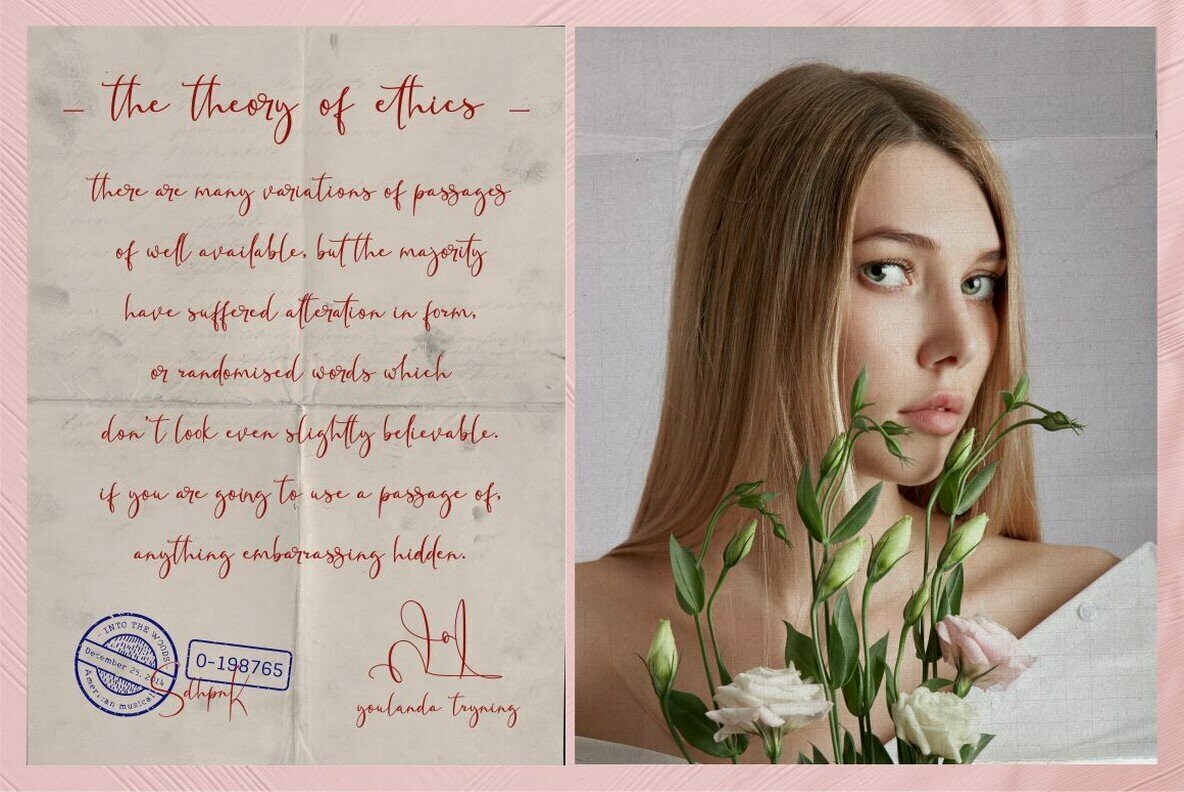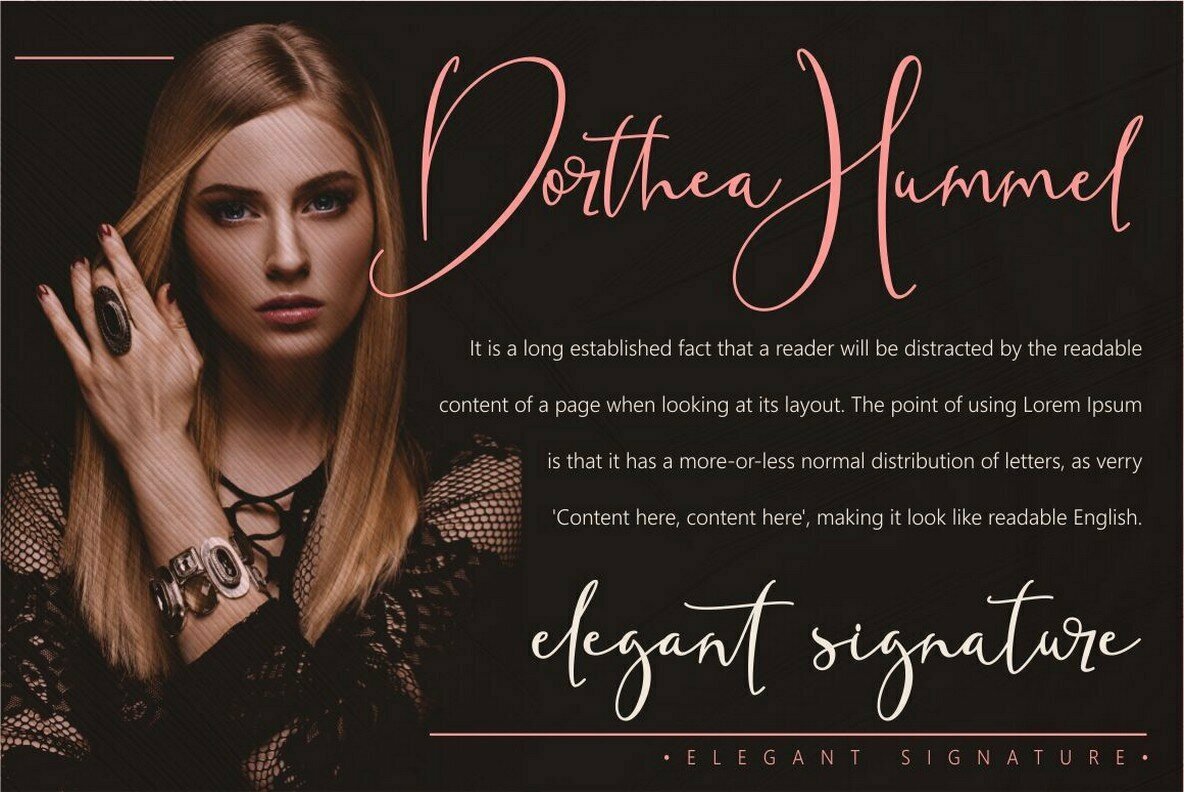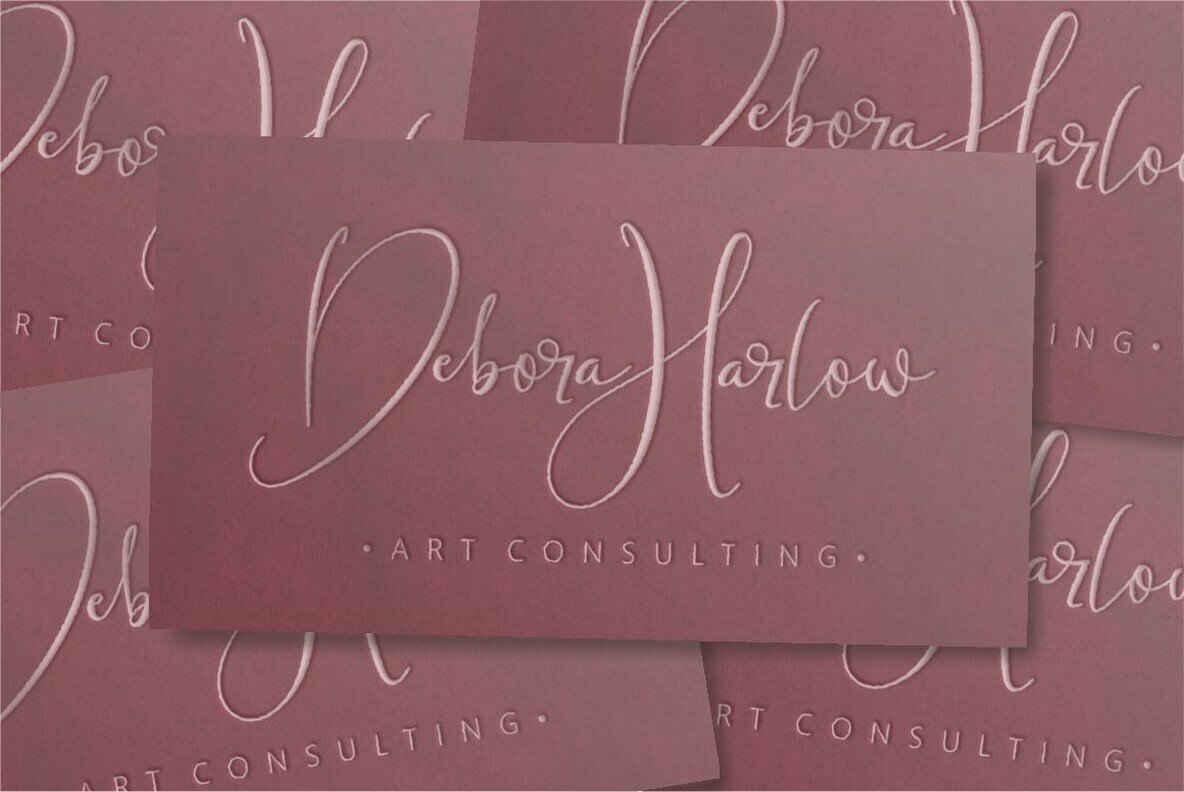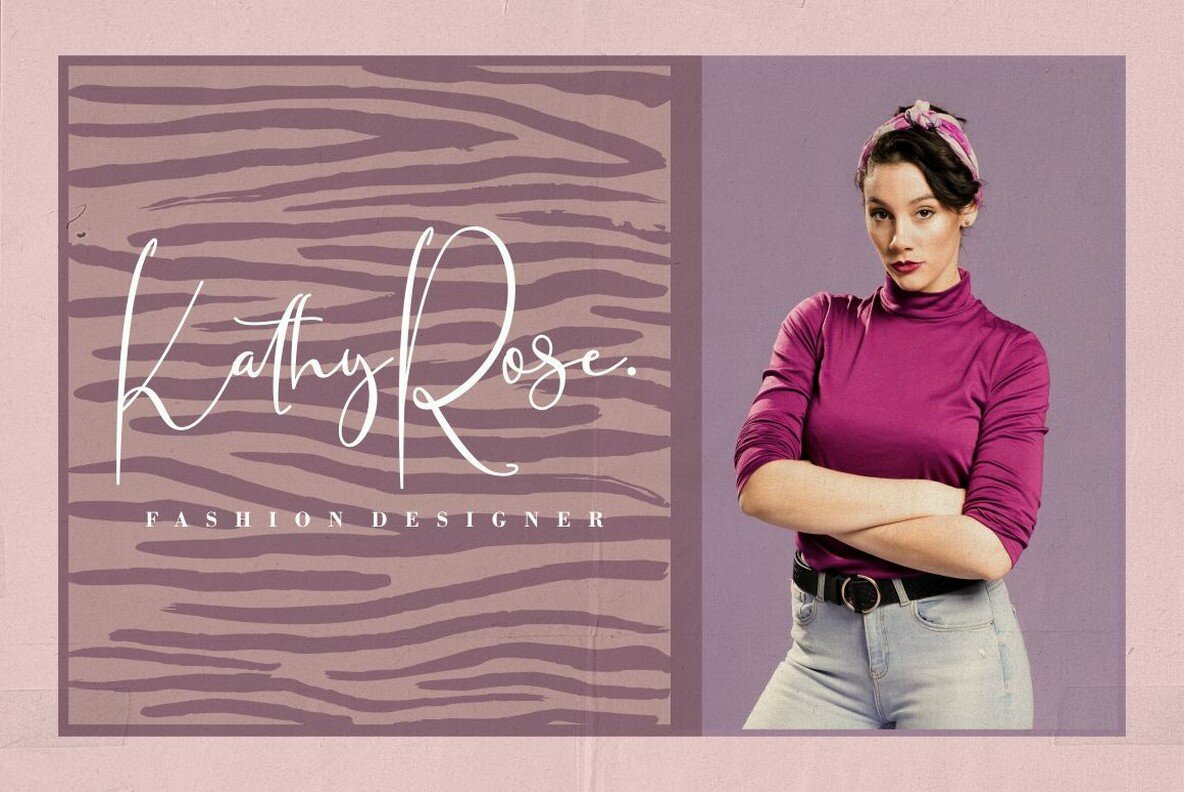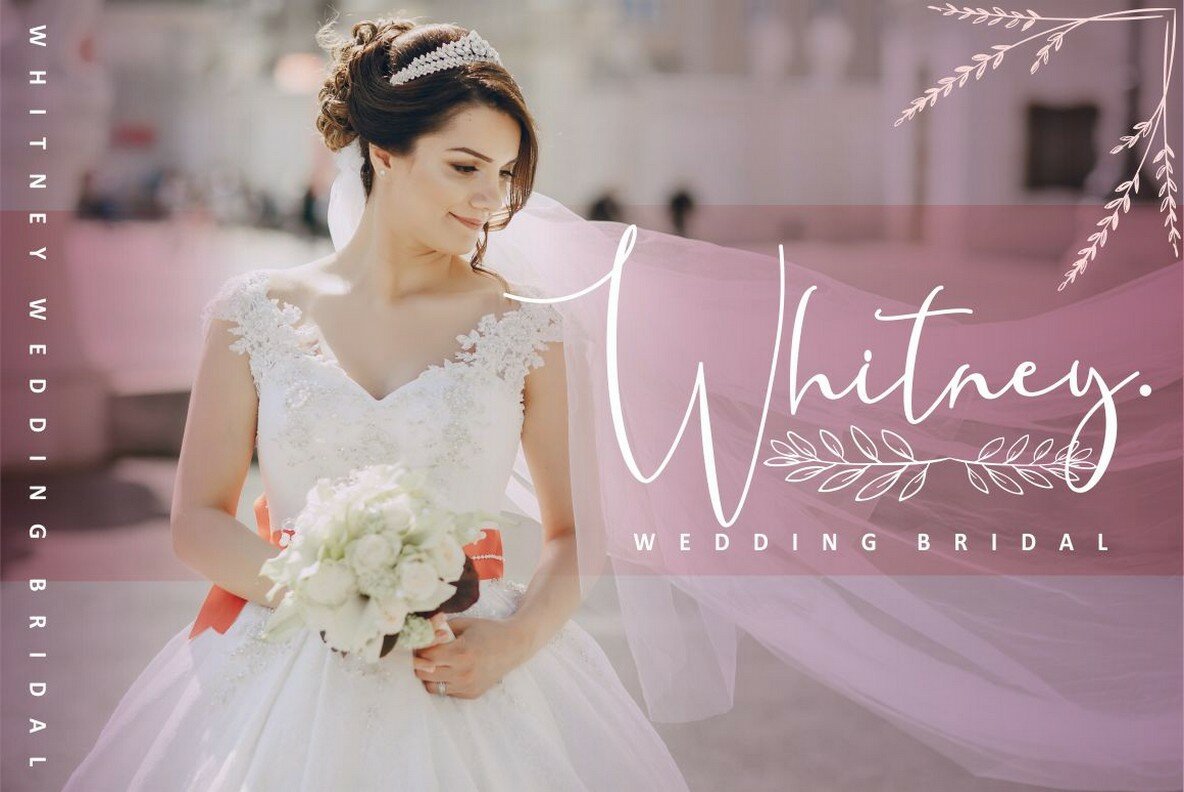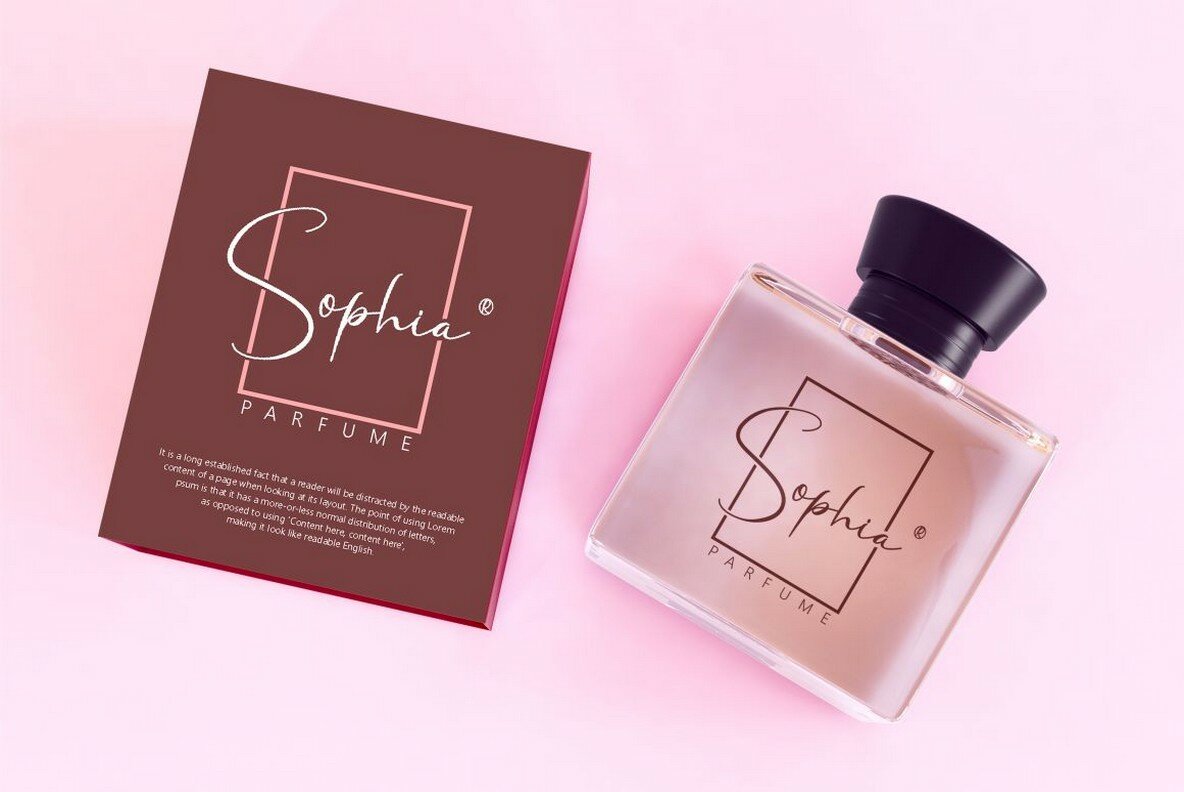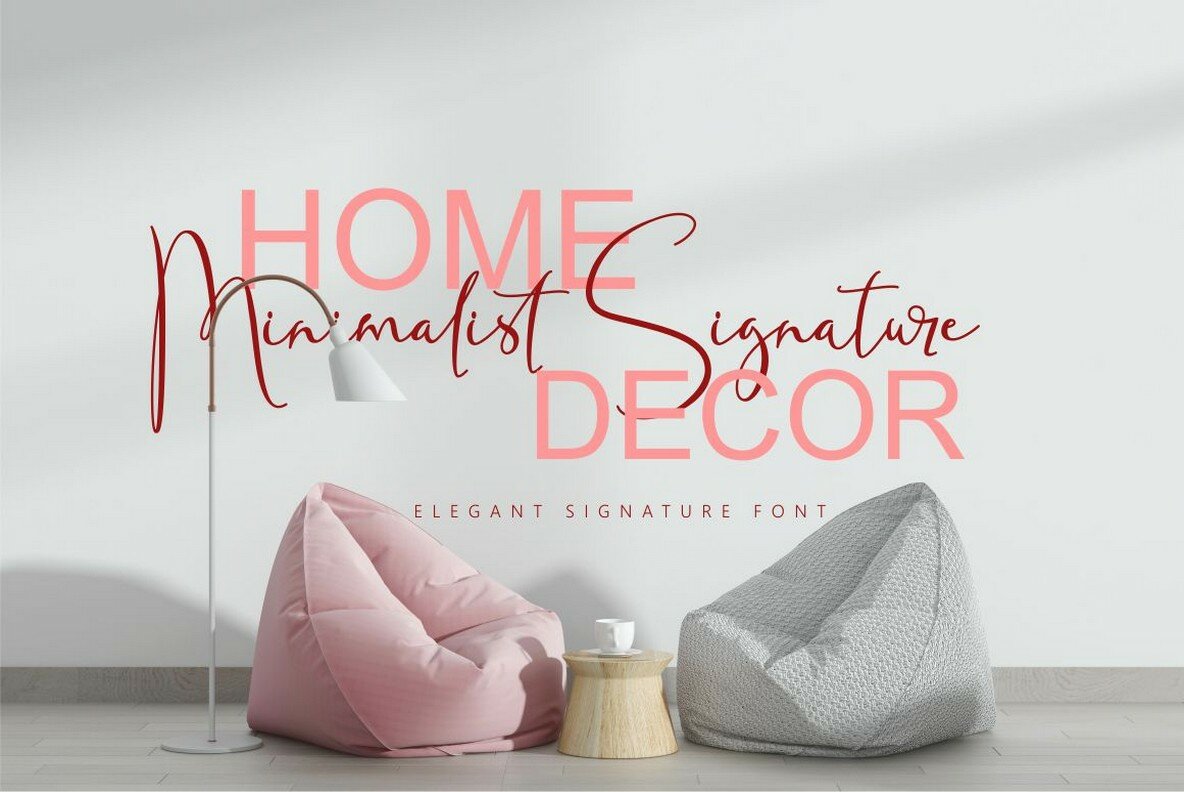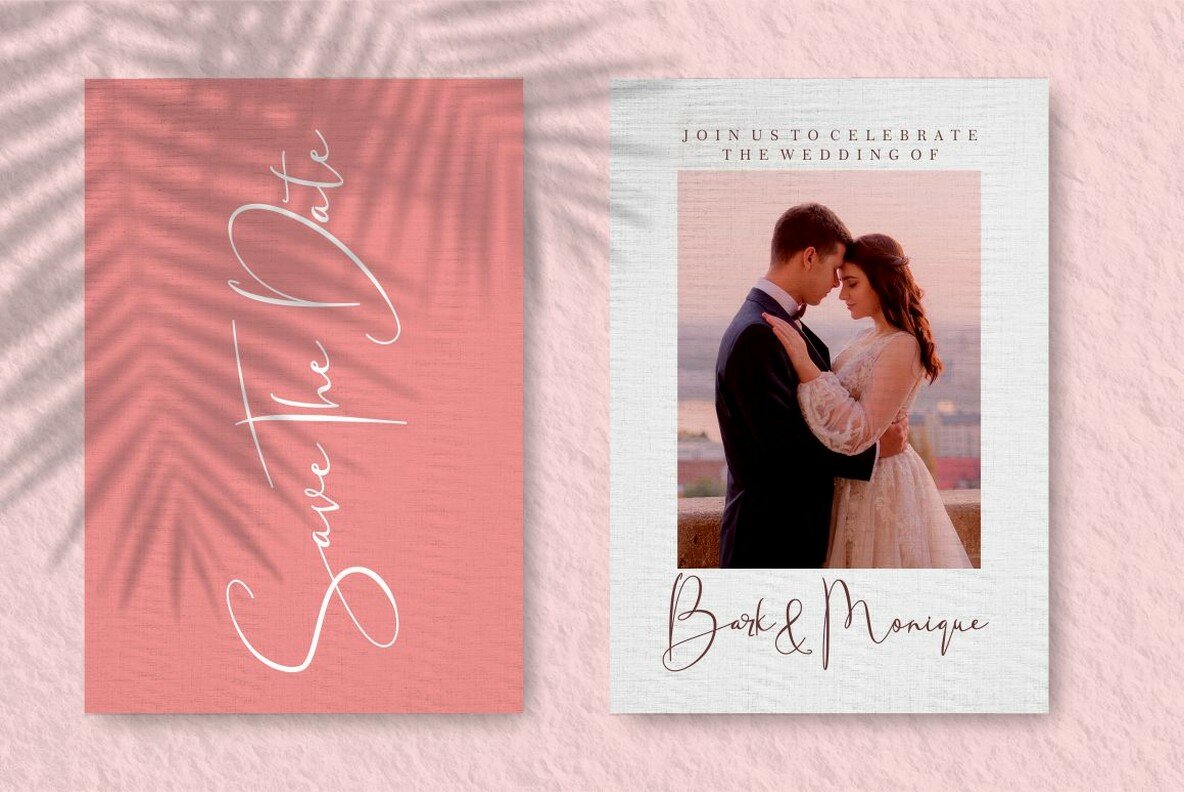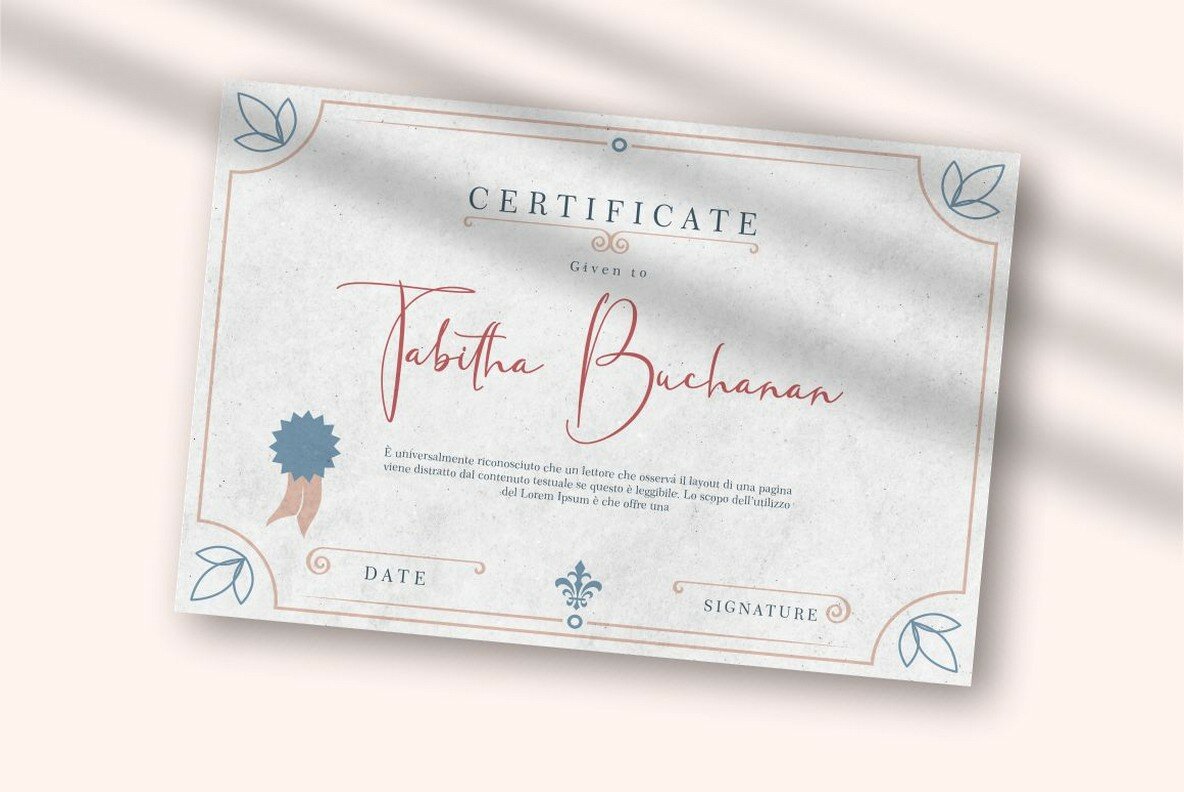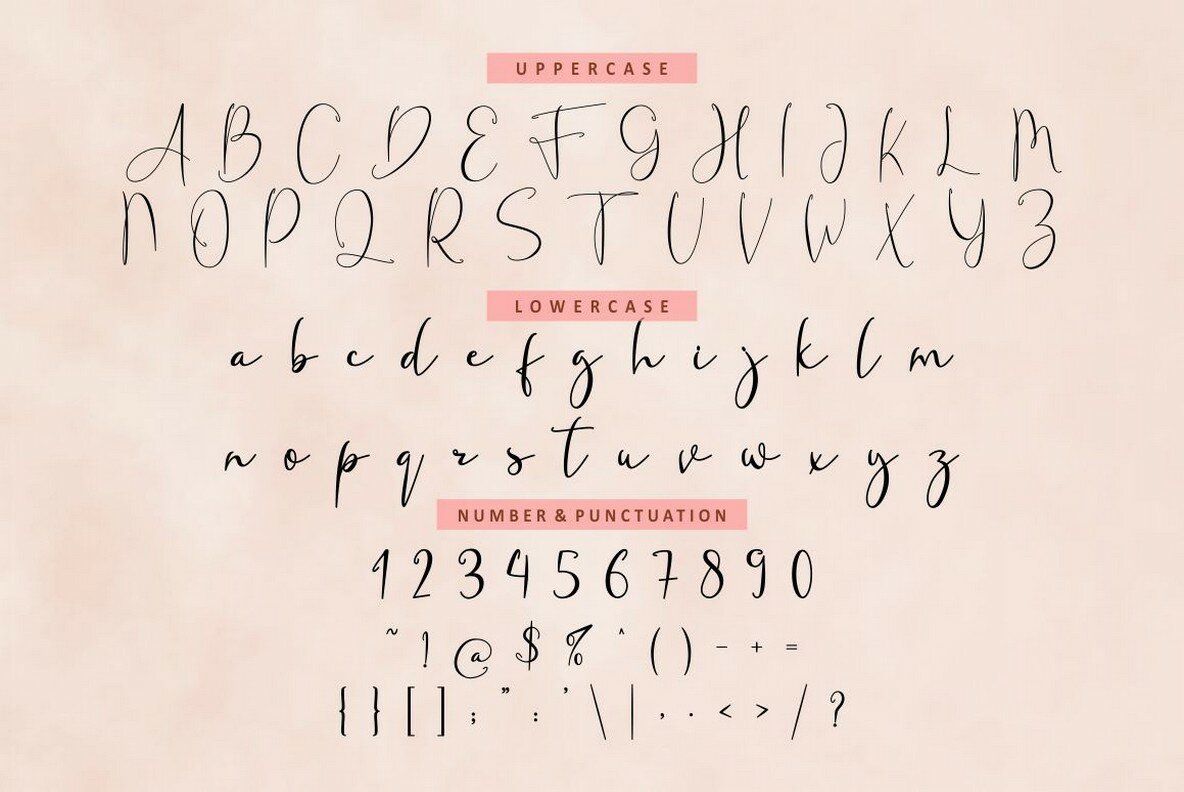
Fanish Signature Font
Fanish Signature
Immerse yourself in the world of refined typography with Fanish Signature, an elegant script font that captures the essence of natural handwriting. Created with craftsmanship, it features 116 unique ligatures, offering an authentic handwritten look that adds a personalized touch to your projects. Ideal for an array of creative applications, Fanish Signature thrives in designing signatures, wedding themes, brand identities, and decorative invitations. Its versatile style also enhances headers, covers, posters, and packaging, while infusing fluidity and charm into logos, quotes, and social media visuals. It's a font that speaks across languages, accommodating multilingual projects with ease.Fanish Signature: A Handwritten Elegance